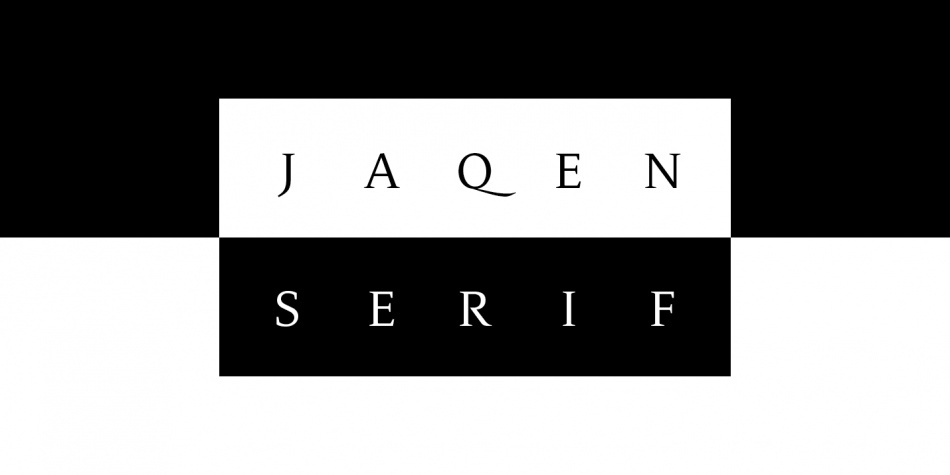
Jaqen Font
Jaqen Font is perfect for mysterious brand identities, enigmatic entertainment campaigns, fantasy gaming interfaces, mystical book covers, secretive organization branding, esoteric product packaging, occult-themed designs, supernatural marketing materials, and atmospheric storytelling projects.
What makes Jaqen Font exciting is its captivating mysterious character that embodies secrets, hidden knowledge, and enigmatic storytelling through carefully crafted letterforms that seem to conceal deeper meanings. The font features intriguing shapes with subtle mysterious elements that create an atmosphere of intrigue and mystique, evoking the allure of ancient secrets and forbidden knowledge. Its sophisticated yet enigmatic design makes it perfect for brands that want to communicate mystery, depth, and the fascinating appeal of the unknown while maintaining excellent readability and professional credibility across all applications.
Jaqen Font family includes various mysterious weights such as Light, Regular, Medium, and Bold variations, often featuring cryptic stylistic alternates and enigmatic decorative elements. The family may include mystical symbols, secretive ornaments, and mysterious ligatures that enhance the font's enigmatic aesthetic, providing designers with comprehensive options for creating compelling typographic compositions that capture the essence of mystery and intrigue.